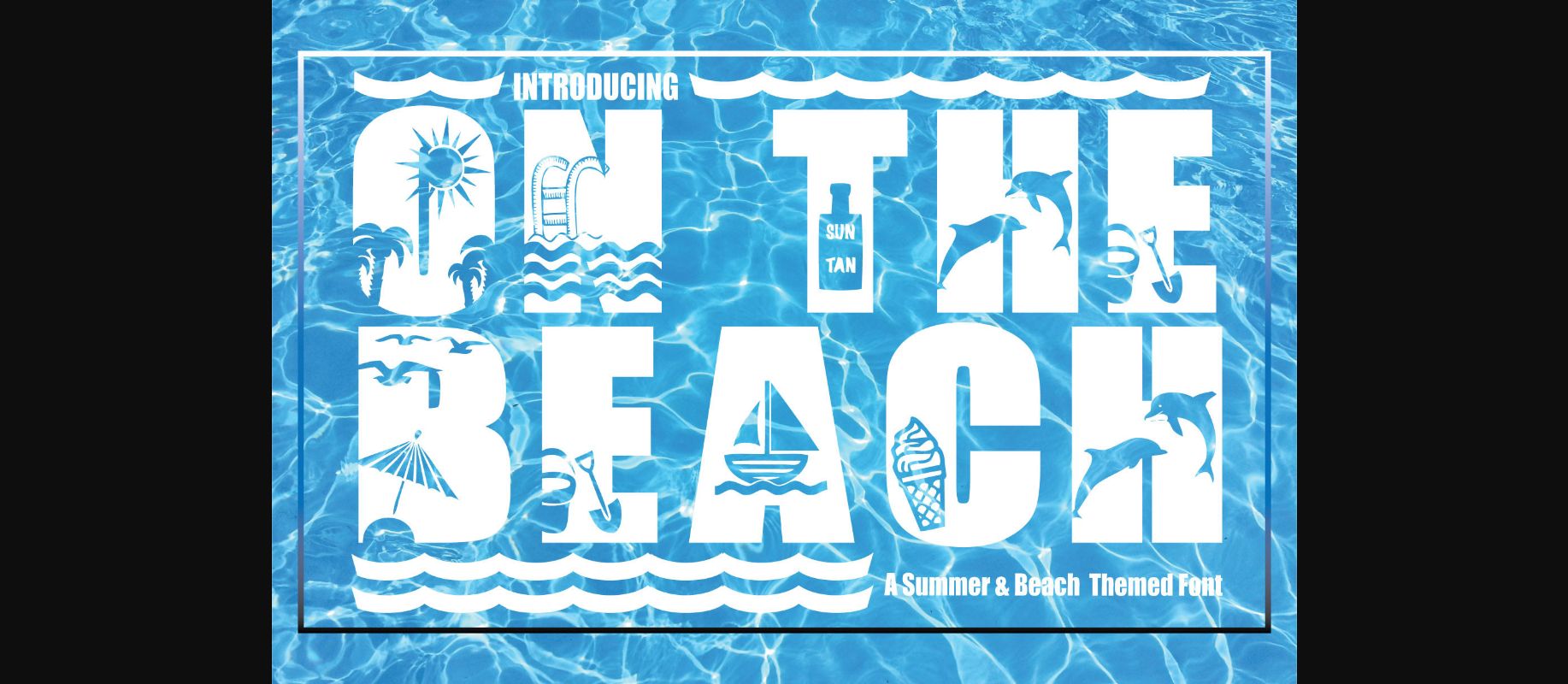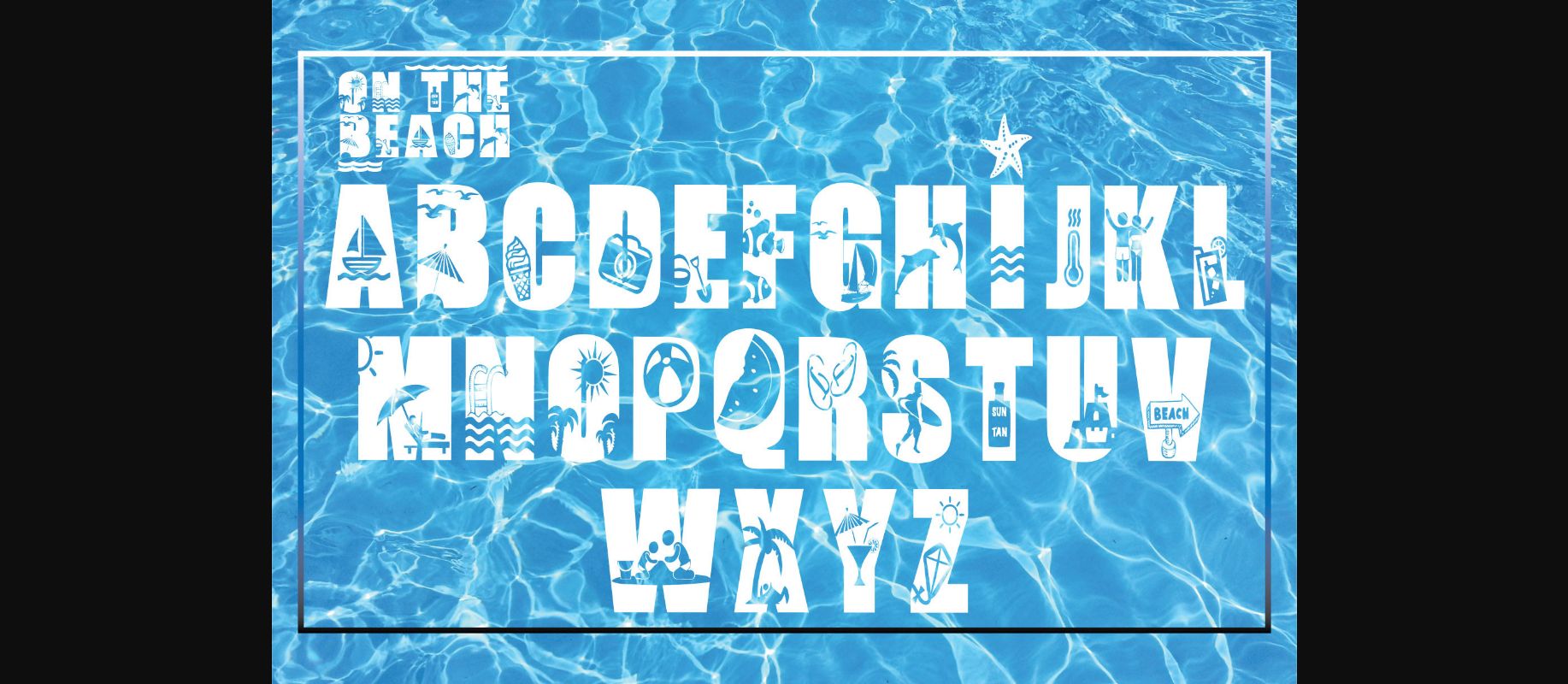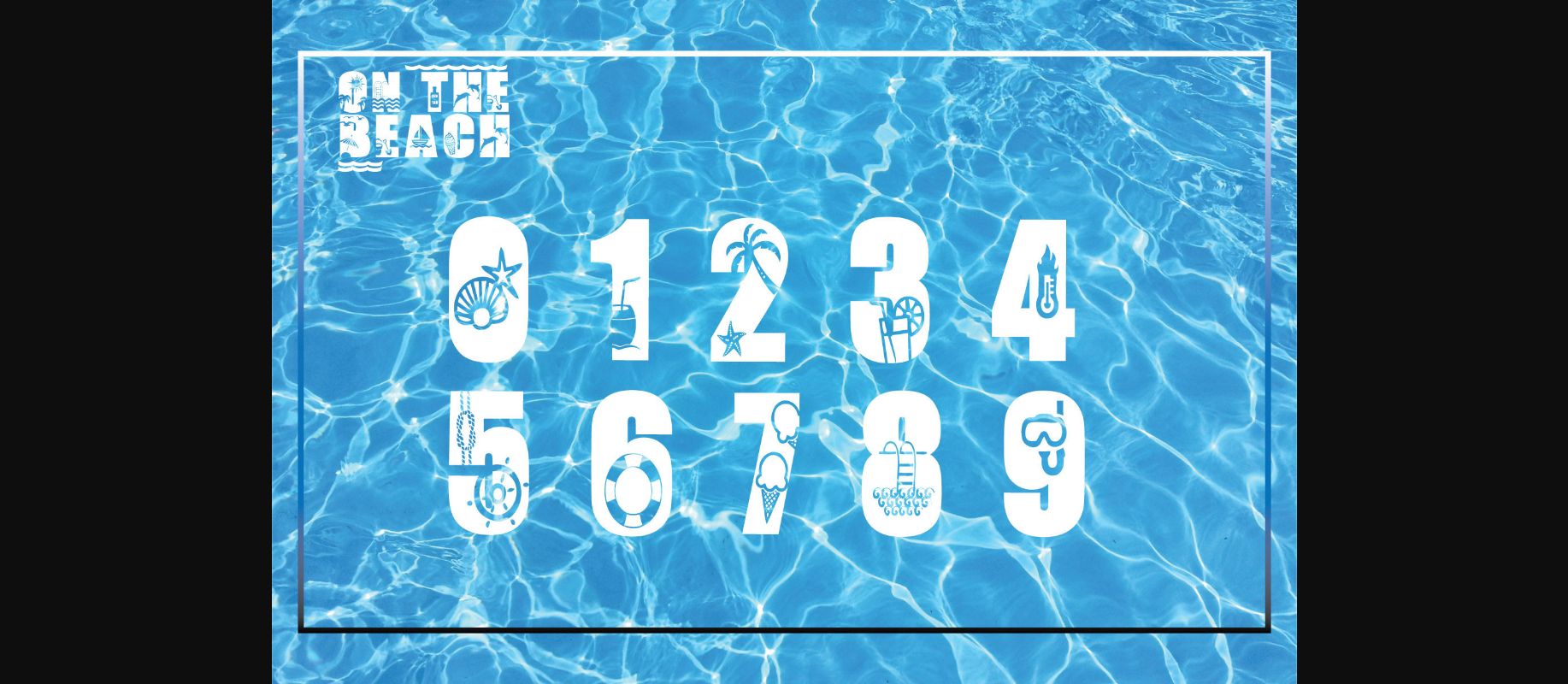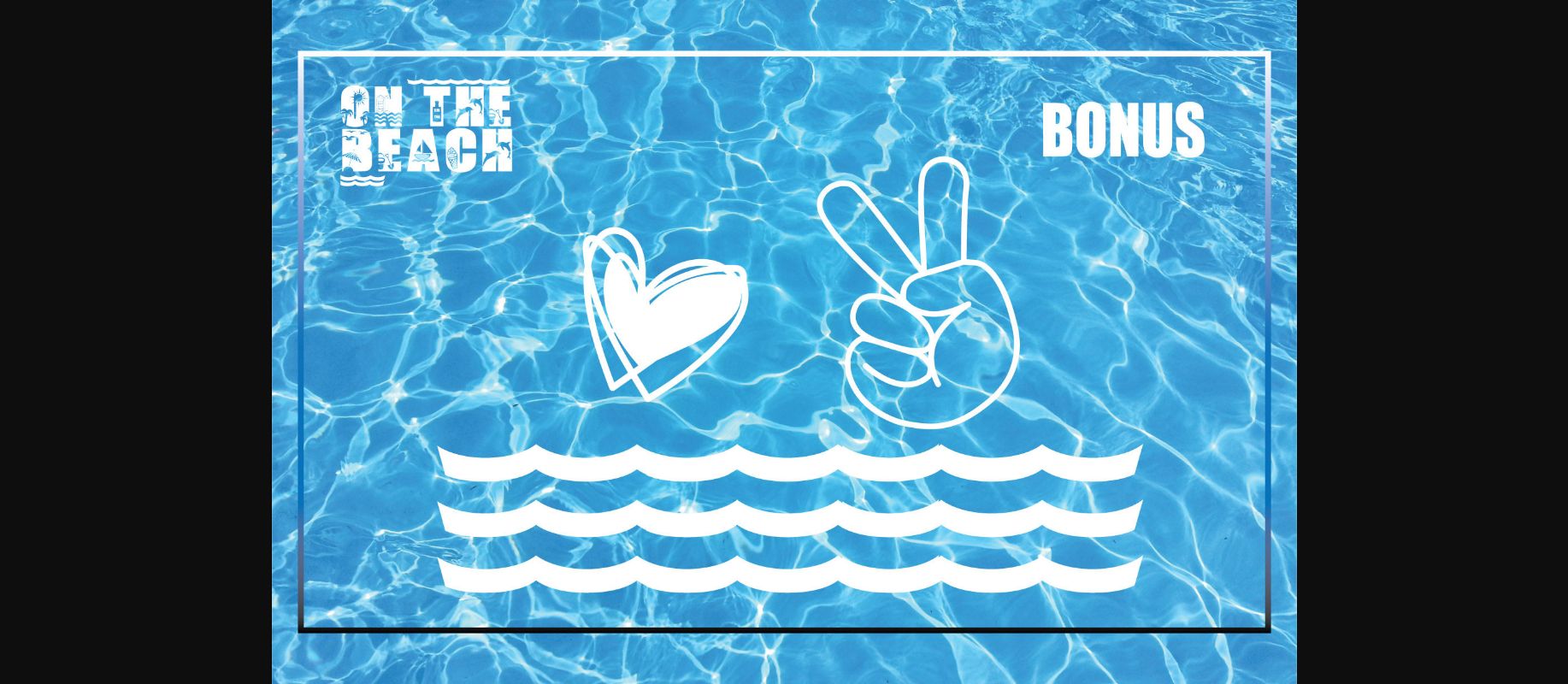
On the Beach Font
About On the Beach Font
On The Beach is a bold, incredibly cool, and thick lettered decorative font. It can be used for various design ideas related to water, sports, or both. Have fun with this beautiful font and explore its endless variations.